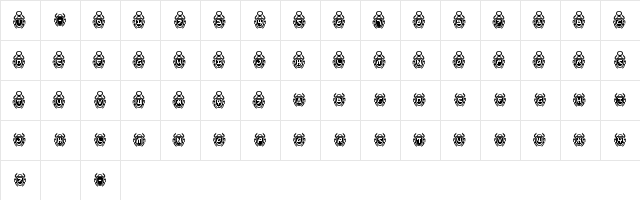
Scarab Border Regular
| Foundry | Monotype Typography |
| Designer | Monotype Type Drawing Office - Robin Nicholas, Patricia Saunders 1982 |
Design Context for Scarab Border Typeface
Scarab Border is a composed and adaptable typeface that performs quietly and consistently across a wide range of design contexts.